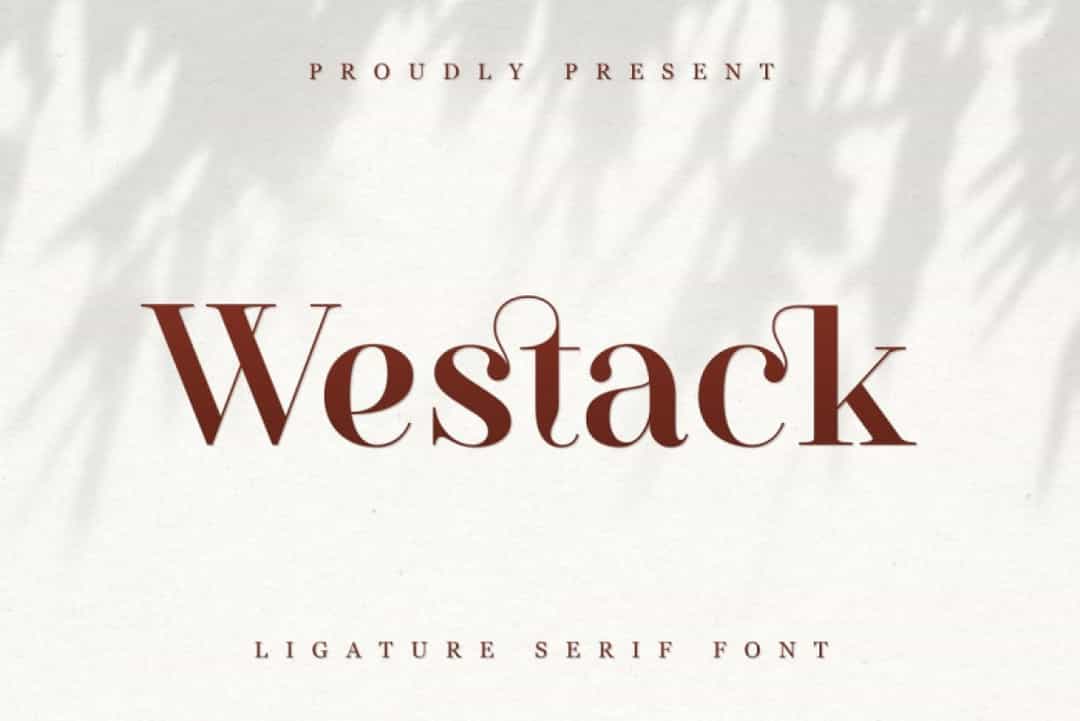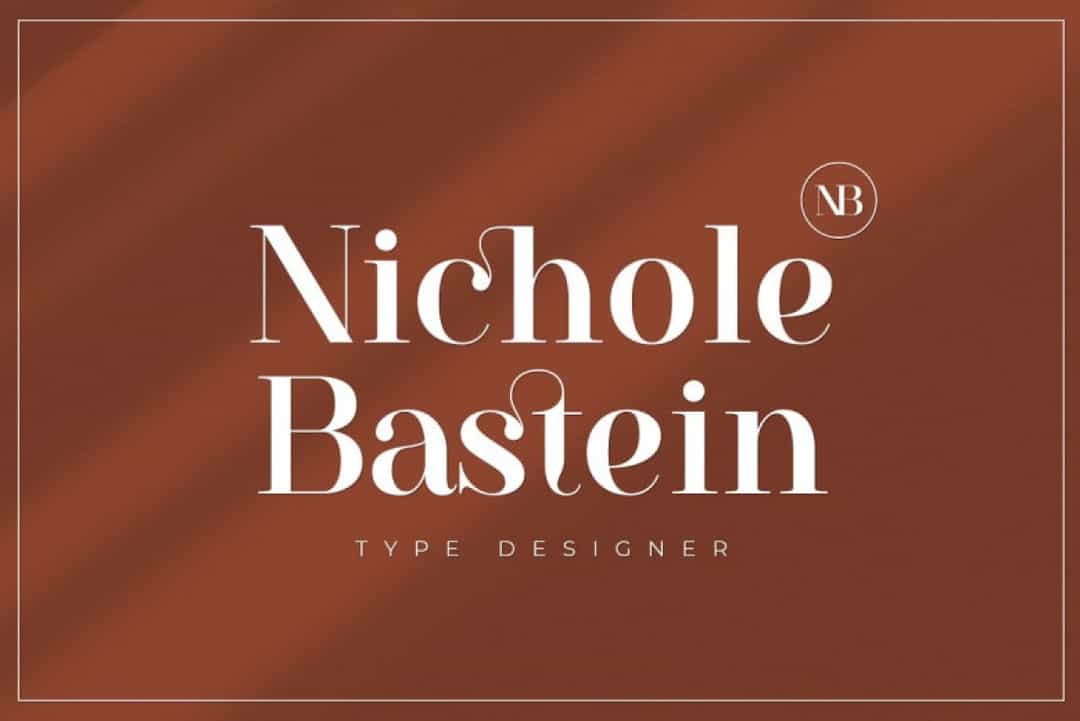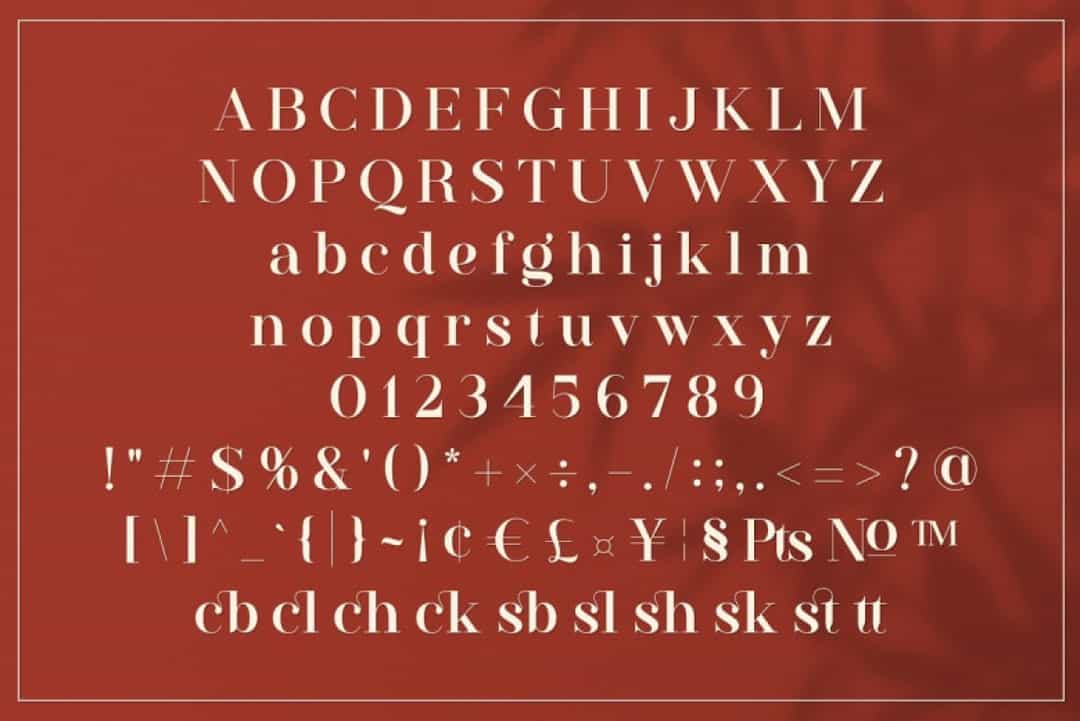
Discover Westack Font, part of the Serif collection—a versatile and unique font perfect for adding a personal touch to your projects. Download it for free and enjoy crafting designs with style, from invitations to social media posts. This font is available exclusively for personal use, giving you the freedom to create without limits. Unlock your creativity with Westack Font today!
Westack Serif Typeface was inspired by iconic minimalist logo, making it ideal for creating templates, brochures, videos, ads logos and much more.